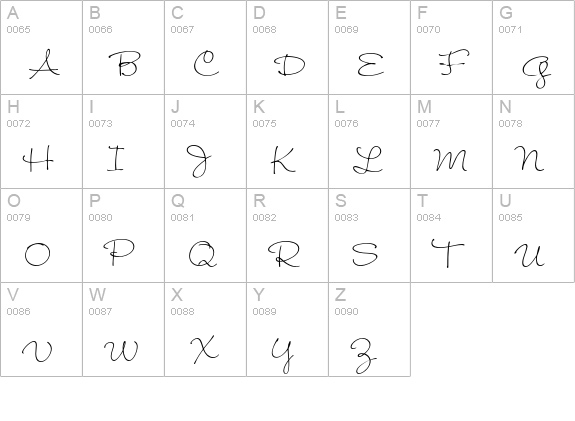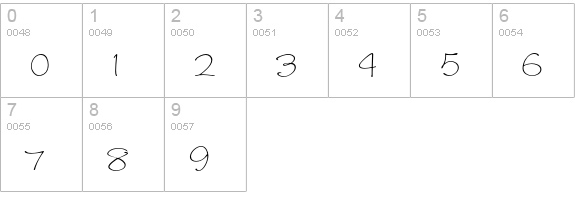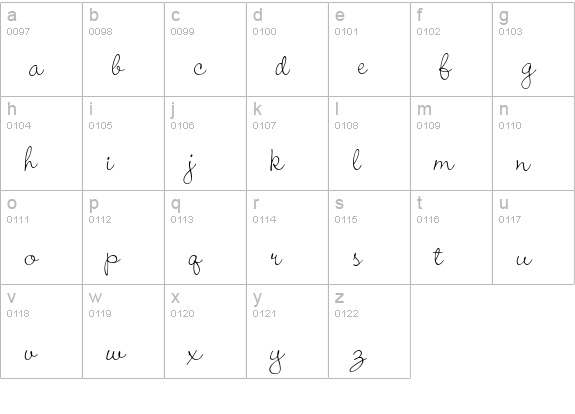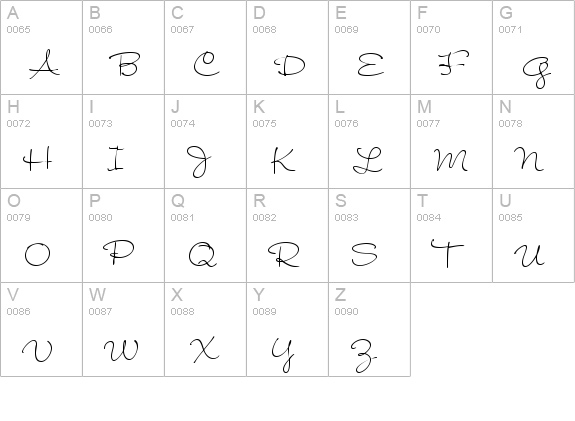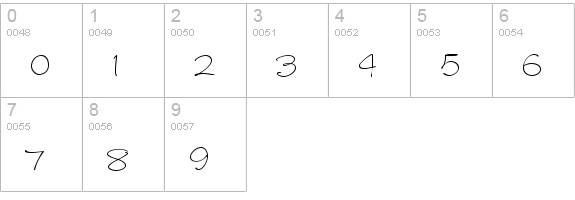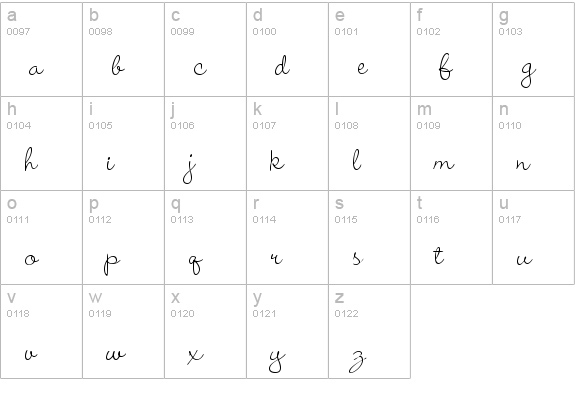
Wendy LP Std Light Font Details
Wendy LP Std Light is a refined, elegant variant in the Wendy typeface family \xE2\x80\x94 well suited to elegant body text, refined sub-headings, and luxury branding.
Wendy LP Std Light is a delightful and elegant font that will add a touch of sophistication to any design project. Its sleek and slender letterforms exude a sense of grace and beauty, making it the perfect choice for invitations, wedding stationery, branding, and more. This font's distinctive features include its clean lines and subtle curves, which create a harmonious balance between modernity and tradition. The light weight of Wendy LP Std Light adds a delicate and airy feel, making it ideal for designs that require a touch of subtlety and refinement. One of the best things about Wendy LP Std Light is that it is freely available to download at FontsMarket.com. This means that you can easily access this stunning font and use it in your personal or commercial projects without any hassle. With its generous availability, Wendy LP Std Light allows designers of all levels to create beautiful and professional designs without breaking the bank. Whether you're a seasoned designer looking to add a new font to your collection or a beginner searching for the perfect typeface, Wendy LP Std Light is a fantastic choice. Its versatility and timeless appeal make it suitable for a wide range of design projects, from elegant wedding invitations to sleek corporate branding. So why wait? Discover the beauty and versatility of Wendy LP Std Light today, and bring your designs to life with this stunning and freely available font from FontsMarket.com.